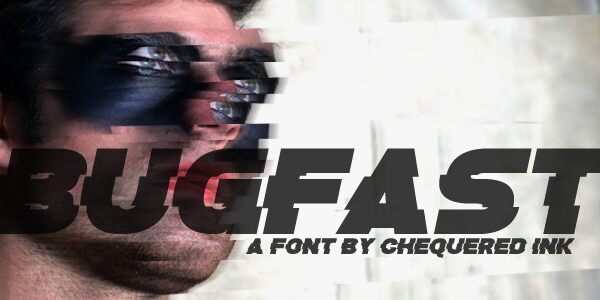
Bugfast
Bugfast is a bold, distorted display font that radiates an edgy, uncompromising aesthetic. The expanded letterforms and chequered, fragmented surfaces convey a sense of raw power and underlying tension. This font exudes a bold, industrial-inspired vibe, making it an impactful choice for headings, posters, and branding applications that demand attention. Bugfast's unconventional design lends itself well to a variety of contemporary design contexts, from gritty urban landscapes to futuristic digital environments.
Its distinctive character and strong visual presence ensure that content set in this font will leave a lasting impression on the viewer.
Bugfast by Chequered Ink.